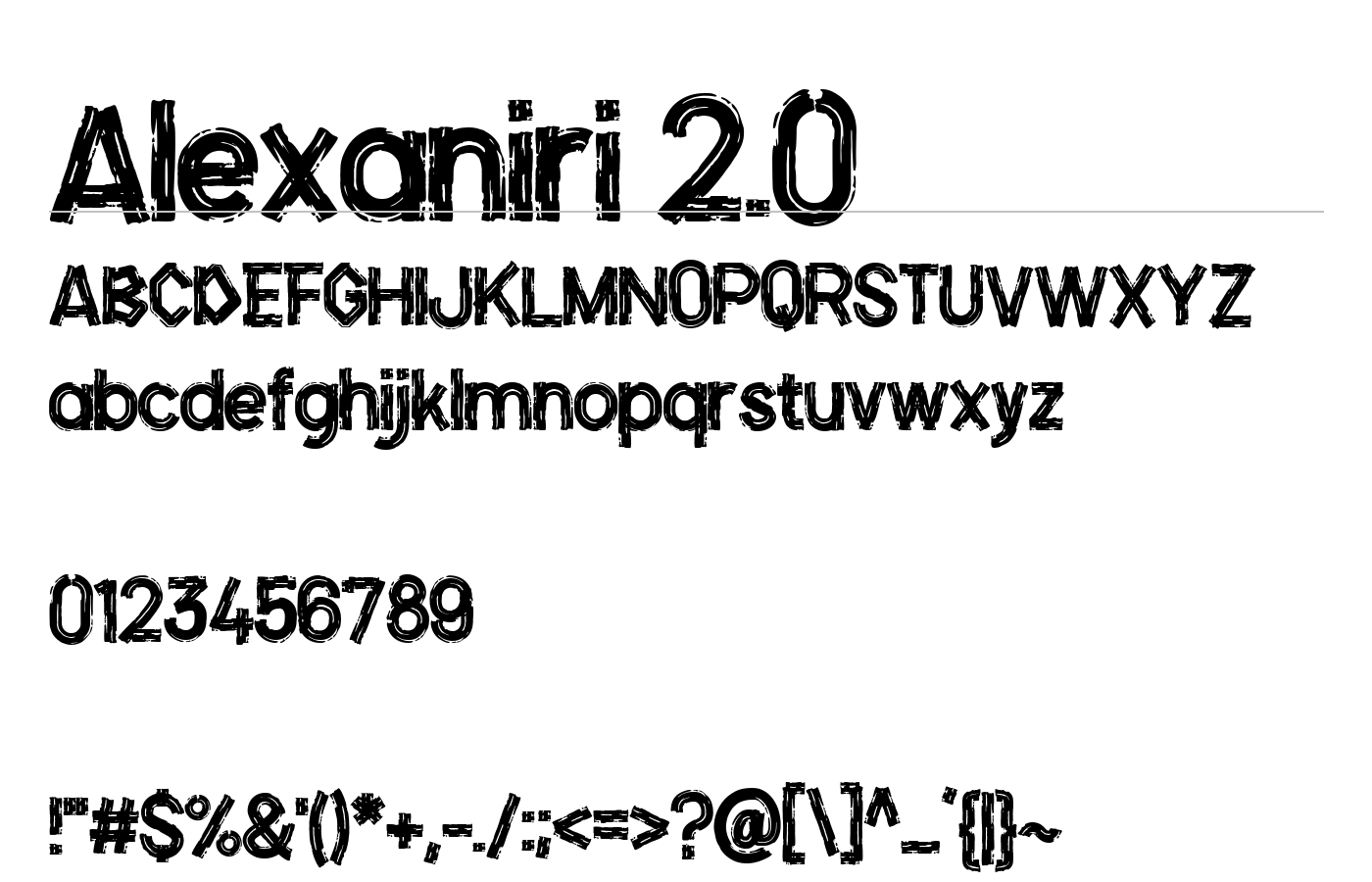
Alexaniri 2.0 is a bold, distressed sans serif font with a textured, rough-edged look that gives it a striking, handcrafted character. Its irregular strokes and worn appearance create a raw, edgy vibe, making it ideal for creative projects that want to convey energy, rebellion, or an urban aesthetic. Perfect for posters, branding, and headlines, this font adds personality and a distinctive, eye-catching style to any design.
| Designer | Anang Fibriyanto | Cornertype™ Studio Indonesia |